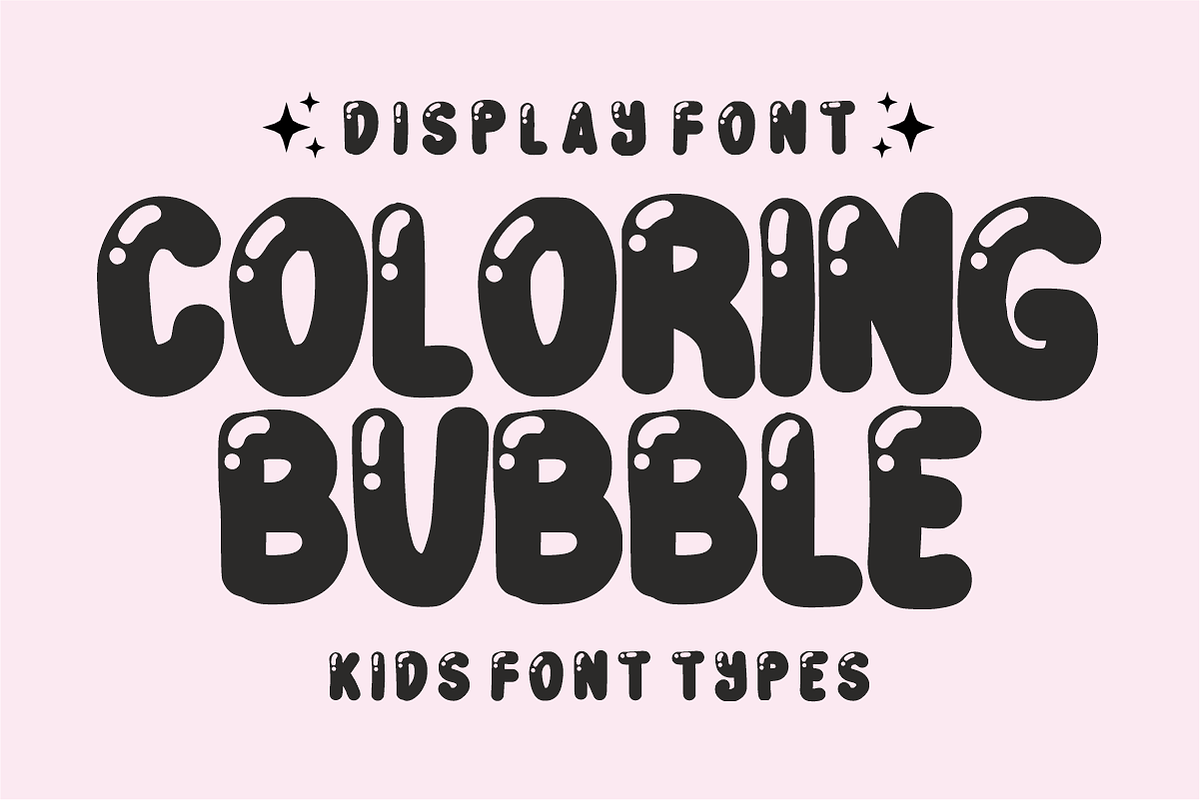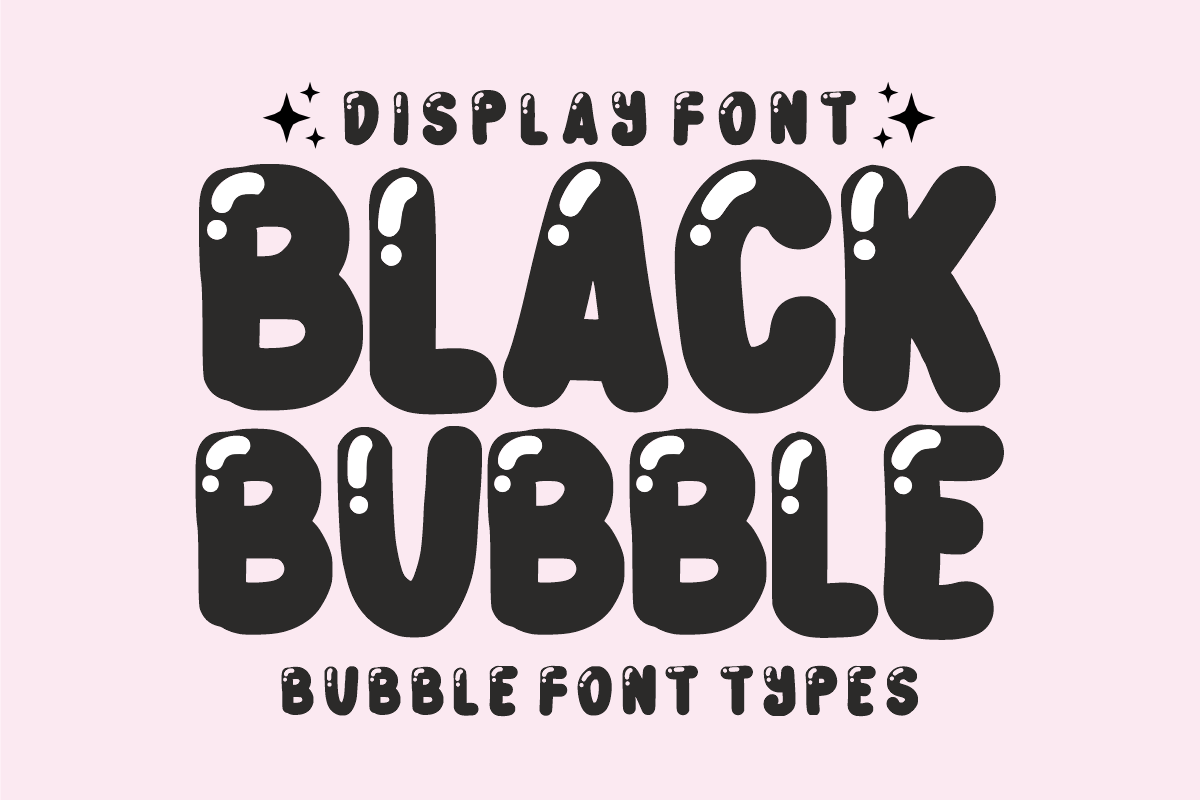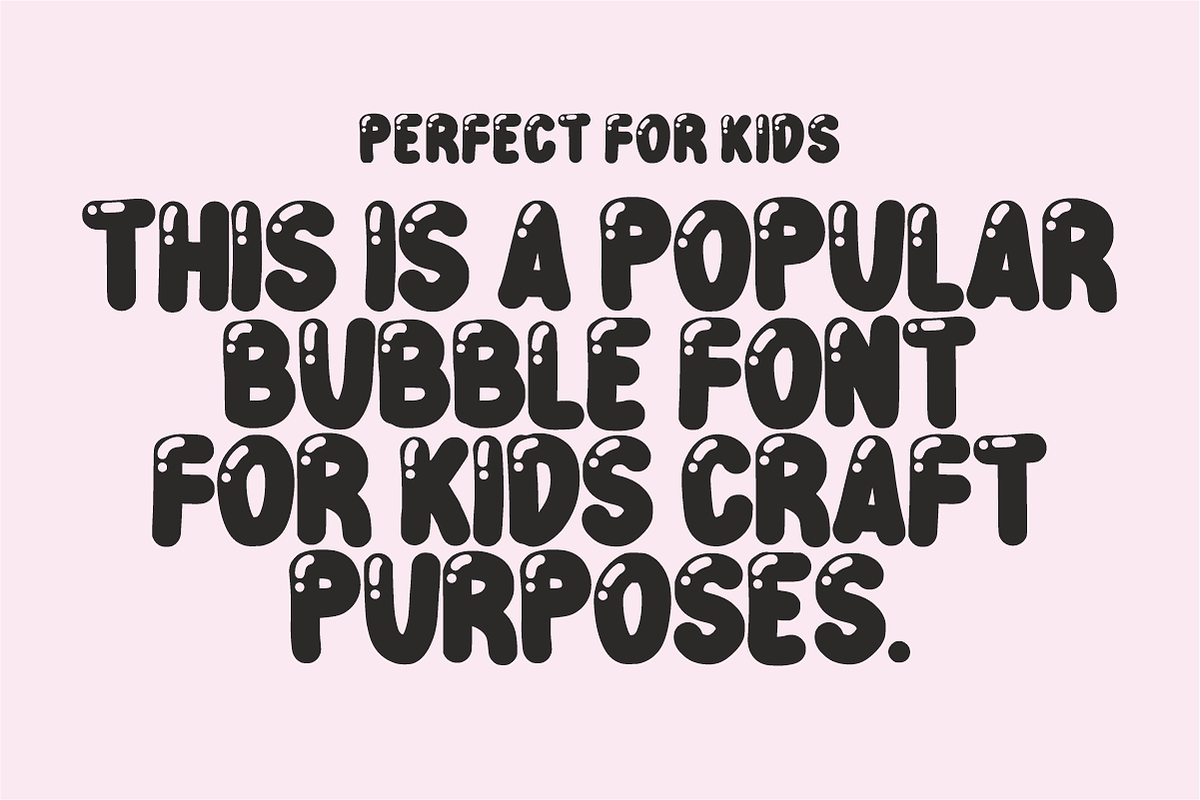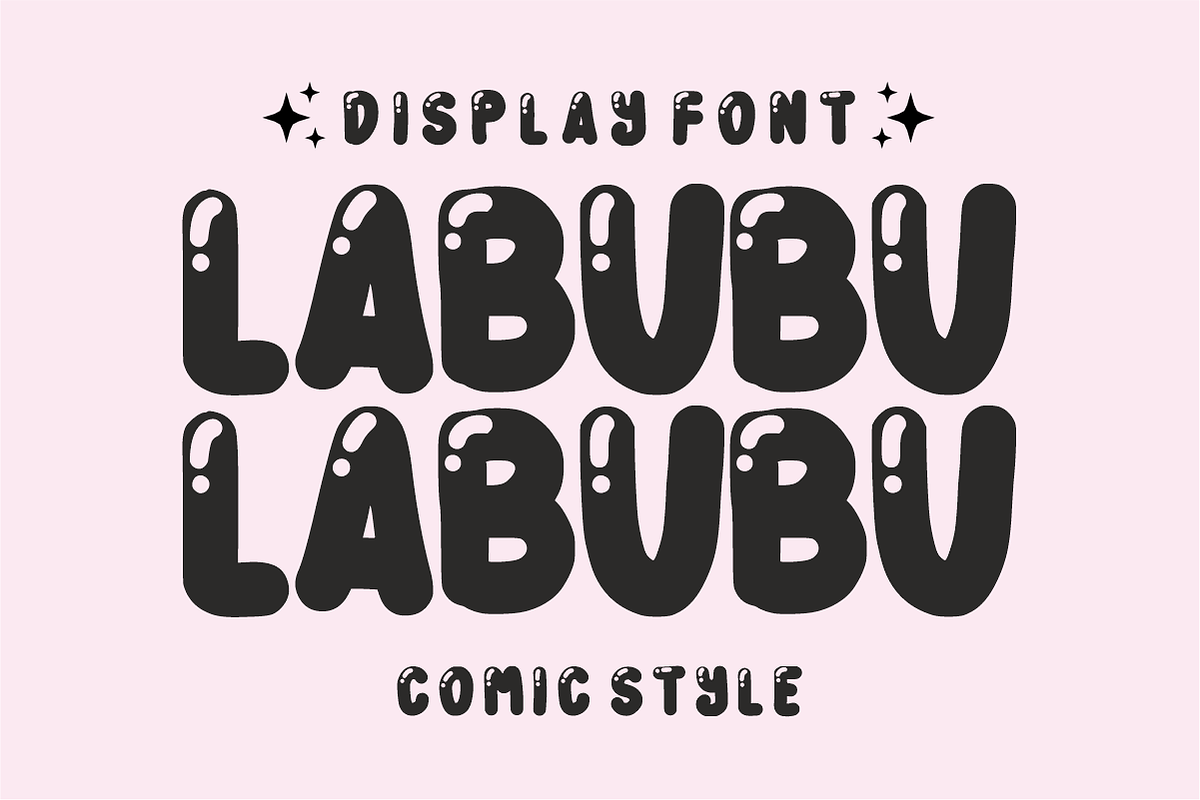
Black Bubble - Bubble Display Font
Black Bubble - Playful Shiny Bubble Display Font
Make your designs pop with Black Bubble! This ultra-chunky display font features bold, balloon-inspired letterforms with charming, built-in glossy highlights that mimic real shiny bubbles. It is specifically engineered to give your headlines an instant, high-impact personality with a fun, modern aesthetic.
Perfect for the sticker community, juvenile branding, and trend-focused crafting, Black Bubble beautifully balances a high-energy comic look with professional vector precision. It is highly versatile and fully optimized for seamless integration across premium digital cutting tools and print layouts.
All-Caps Character Set (Chunky, shiny bubble uppercase letters)
Numbers & Basic Punctuation (Essential, simple symbols included)
Die-Cut Stickers, Decals, & Fun Pin Badges 🏷️
Children’s Branding & Playful Logo Design 🎨
Kids' Product Packaging, Toy Labels, & Party Decor 🧸
Cricut, Silhouette, & DIY Craft Sublimation Projects ✂️
Social Media Graphics & Eye-Catching YouTube Thumbnails 📱